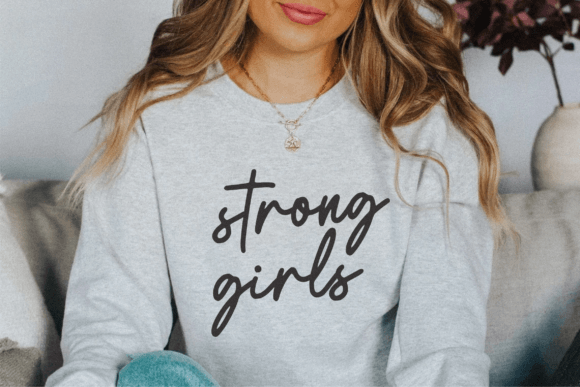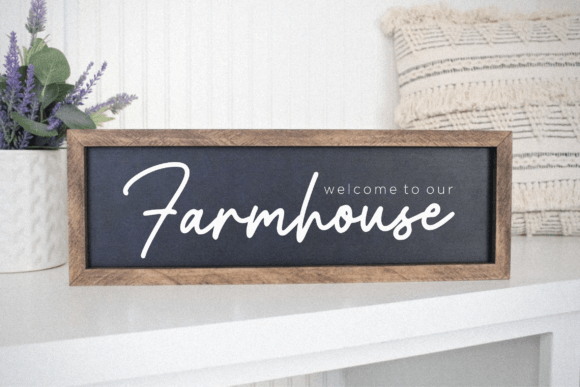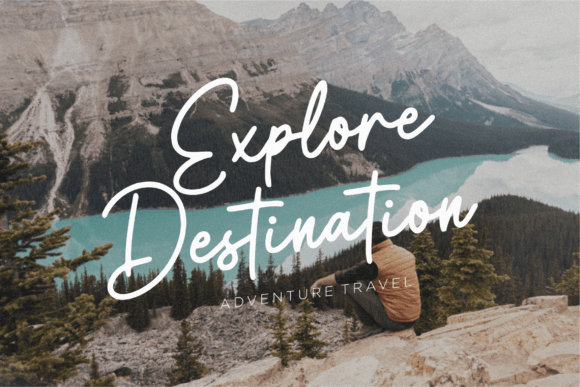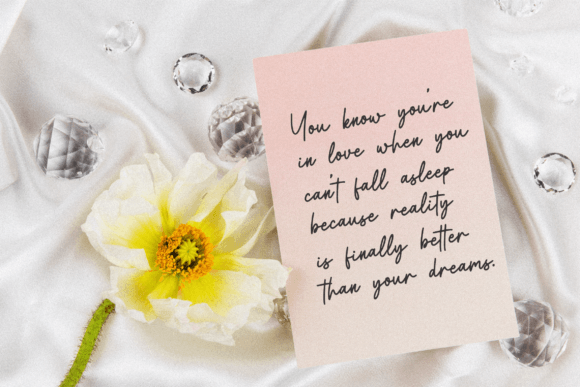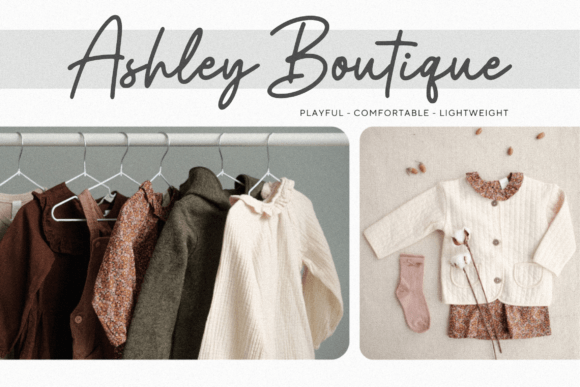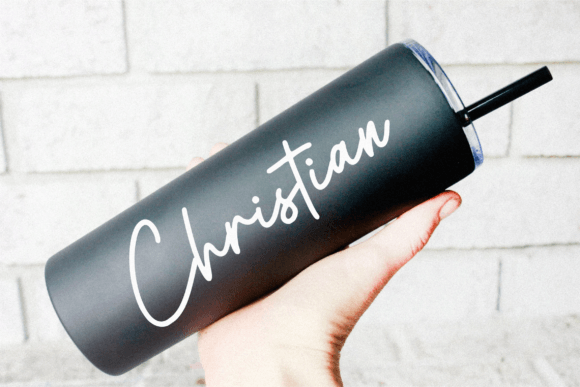
Introduction to Feallico Font
Feallico is a Handwritten Script Font Feallico is perfect for product packaging, branding project, magazines, social media, weddings, or just used to express words above the background.
Feallico Font offers exceptional quality and versatility, making it a valuable addition to your design toolkit. Whether you’re creating for personal projects or commercial use, Feallico Font delivers professional results.